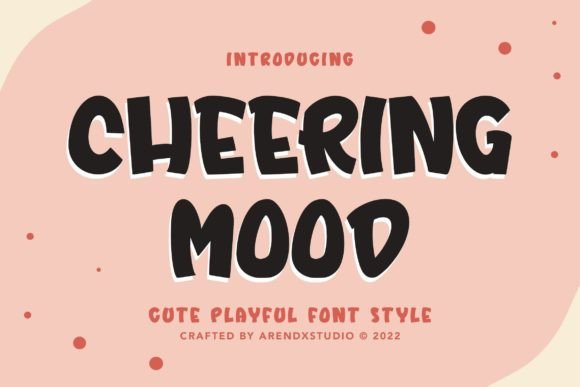
The Ultimate Design Game-Changer: Cheering Mood Font
Have you ever been in the middle of a design project, and suddenly, you’re stuck on finding the perfect font? I recall a particularly frustrating experience while working on a wedding invitation design. My client wanted something playful, yet elegant, but I just couldn’t seem to find the right fit. That’s when I stumbled upon the Cheering Mood Font – a cute, distinctive, and playful display font that has since become a staple in my design toolkit.
An Honest Review of Cheering Mood Font
- ✨ Cute and Playful: This font is perfect for adding a touch of whimsy to your designs. Its unique and quirky style makes it stand out from more traditional fonts.
- ✅ PUA Encoded: The font is PUA encoded, which means you can access all of the glyphs and swashes with ease. This makes it incredibly versatile and easy to use.
- 💕 Perfect for Branding and Design Projects: From logos and wedding designs to media posts and product packaging, Cheering Mood Font is perfect for any project that needs a beautiful touch.
Of course, no font is perfect, and there are a few small quirks to be aware of:
- 🤔 Limited Use Cases: While Cheering Mood Font is incredibly versatile, it’s not suitable for body text or long-form content. It’s best used for headings, titles, and short paragraphs.
The Backstory Behind Cheering Mood Font
While the true story behind Cheering Mood Font remains a mystery, it’s easy to imagine a designer creating this font as a way to spread joy and positivity through their work. Perhaps they wanted to create a font that would make people smile and bring a touch of whimsy to their designs. Whatever the inspiration, Cheering Mood Font has become a beloved font among designers and crafters alike.
| Font Name | Cheering Mood Font |
| Author | Arendxstudio |
| What is Cheering Mood Font? | Cheering Mood Font is a cute, distinctive, and playful display font perfect for branding projects, logos, wedding designs, and more. |